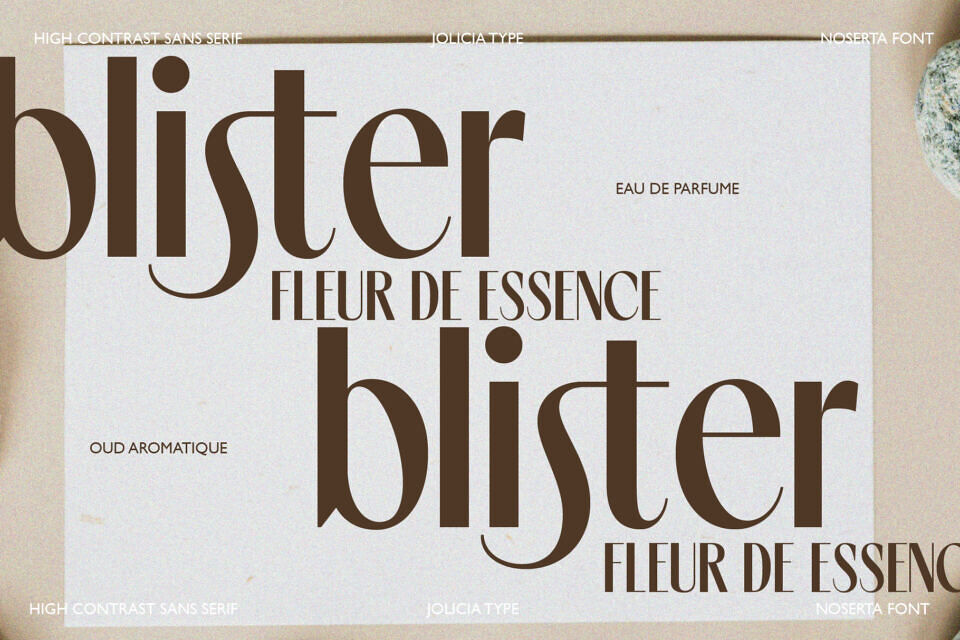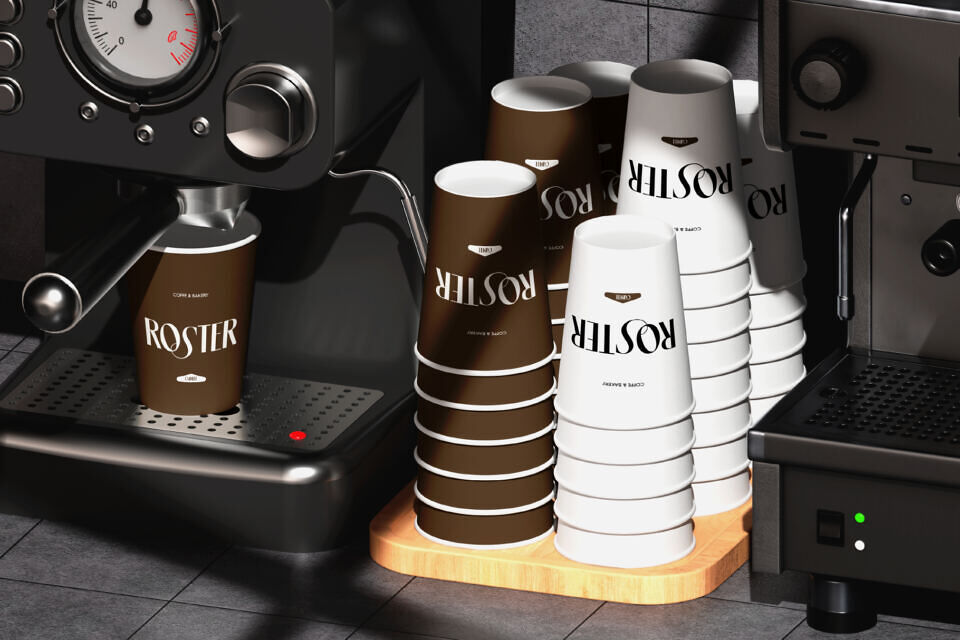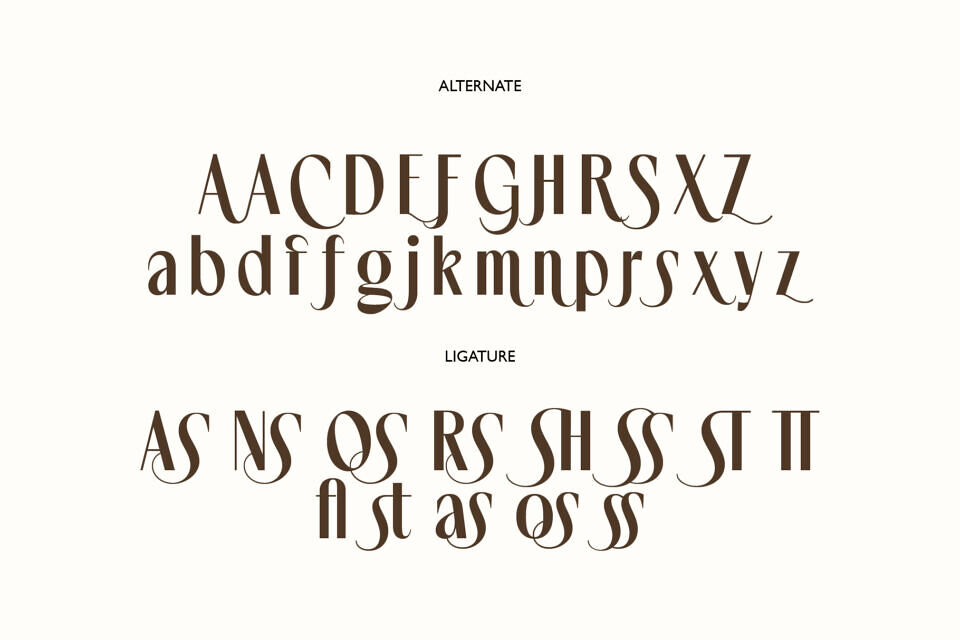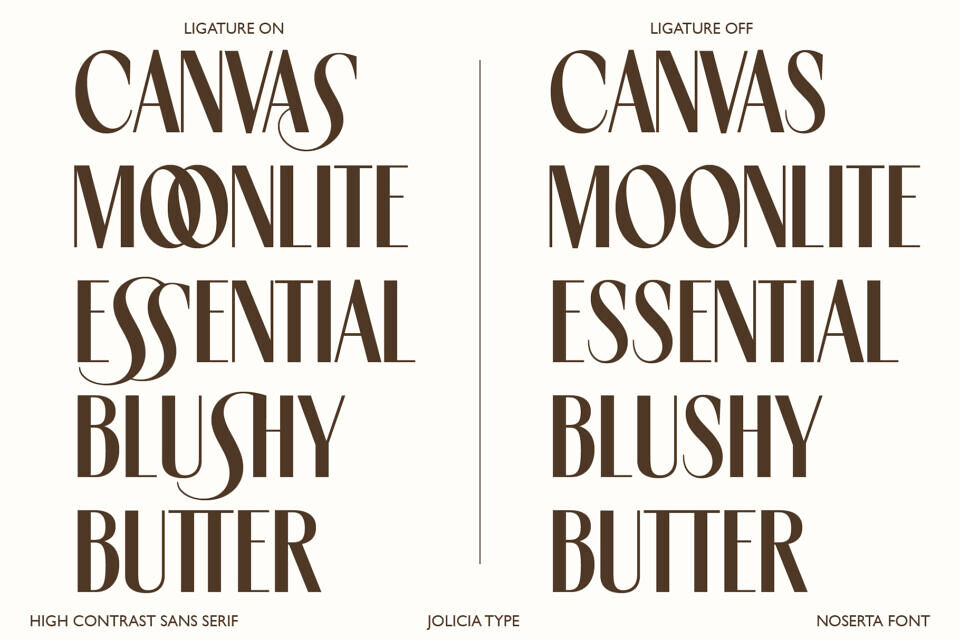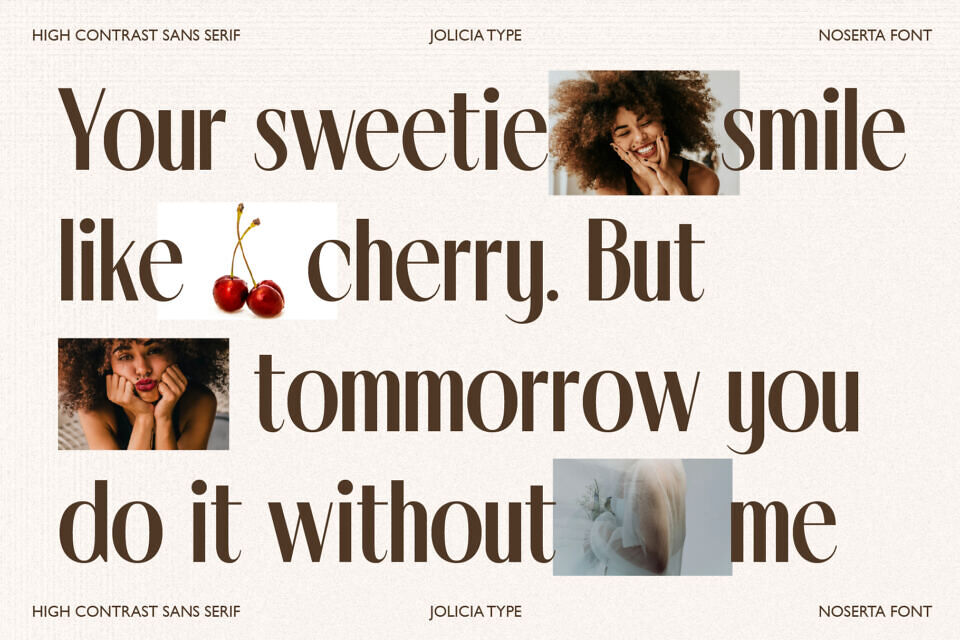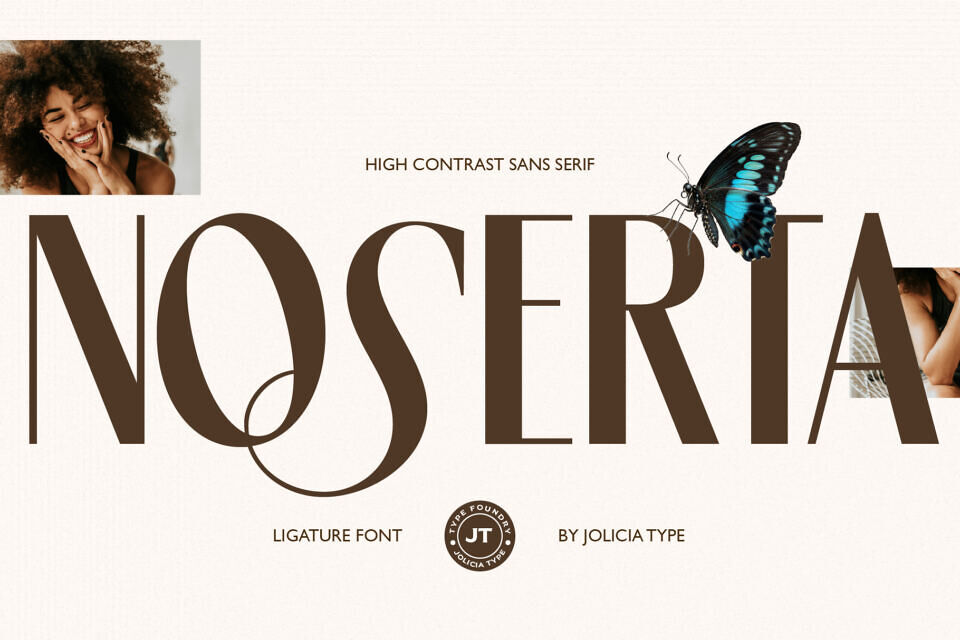
Noserta Font
Noserta is a modern high-contrast sans-serif typeface crafted to deliver elegance, clarity, and a strong contemporary presence. Designed with a refined balance between sharp vertical strokes and delicate thin lines, Noserta brings a luxurious yet confident character to any visual composition.
What truly sets Noserta apart is its unique ligature system, thoughtfully designed to create beautiful connections between pairs of letters. With its clean structure and elegant contrast, Noserta excels in branding, logo design, editorial layouts, fashion identities, premium packaging, headlines, and modern digital interfaces.